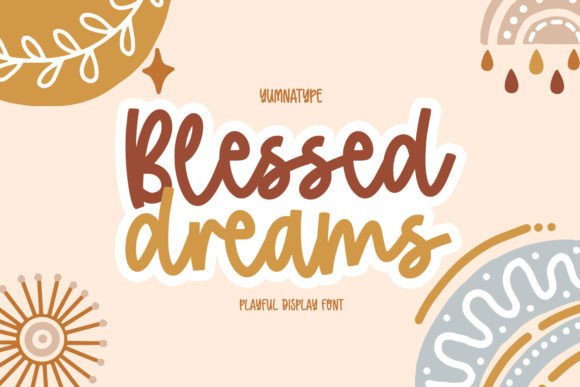
Looking for a stunning handwritten font for your design project can be a frustrating task. It's essential to choose the right typeface that captures your audience's attention and conveys your message. Blessed Dreams Font by Yumna_Type is the perfect choice for those looking for a font to use in sad text.
Blessed Dreams is a beautiful script font that offers soft and gentle nuances through its graceful curves and flowing strokes. The interconnectivity between letters is similar to cursive, allowing for seamless transitions between characters. The font's legibility is impressive, making it an excellent option for body text or larger display sizes.
Blessed Dreams Font is an emotional and captivating font that captures the essence of sadness, providing a unique and genuine emotional tone to your design. Its versatility makes it perfect for a range of design projects such as greeting cards, book covers, wedding invitations, and more.
With Blessed Dreams Font, you can create stunning designs that resonate with your audience's emotions, making them stand out from the crowd. It's the perfect font to use when you want to convey feelings of grief, heartbreak, or sadness in your design project.
Overall, Blessed Dreams Font is a beautiful script font that adds an emotional touch to your designs, making them captivating and engaging. It's an excellent choice for designers who want to create stunning designs that evoke emotions and tell a story. Try Blessed Dreams Font today and take your design project to the next level!